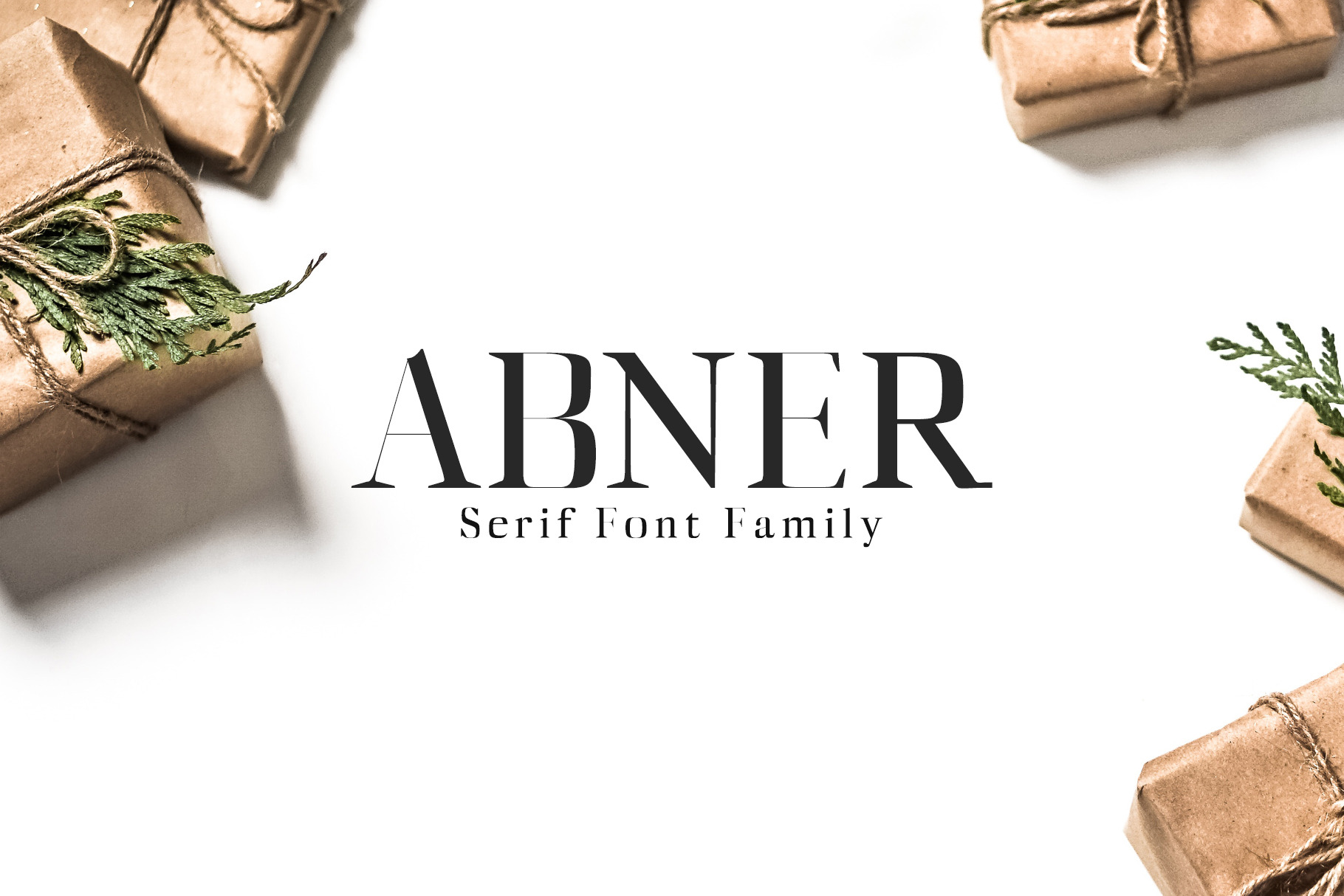
Abner Serif Font Family
Abner Serif Font is a professional serif font family. Abner contains 5 weights. It's good for creative displays logos, headlines, banners, and templates etc. It looks gorgeous in all caps with a wide-set spacing if you want to try a classy look, or beautiful on its own in capital and lowercase letters for something completely timeless.
- Regular, Light, Thin, Black & Bold
Abner Font Features:
- Uppercase Multilingual Letters
- Lowercase Multilingual Letters
- Non English Characters ( Latin Supplement + Latin Extended A)